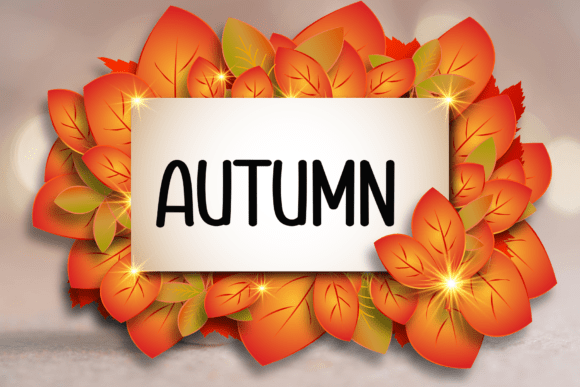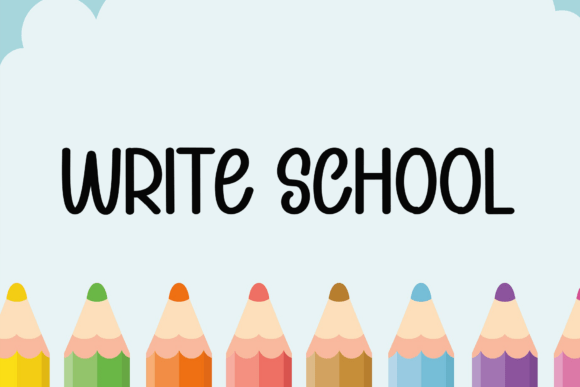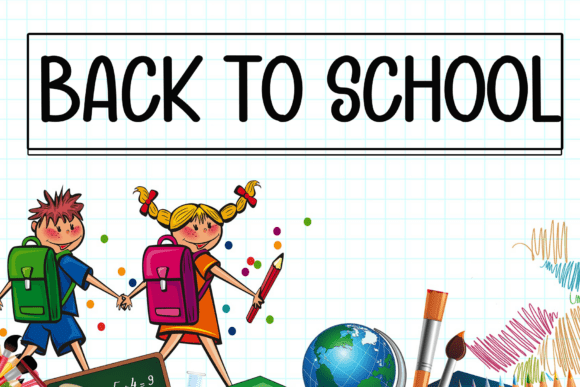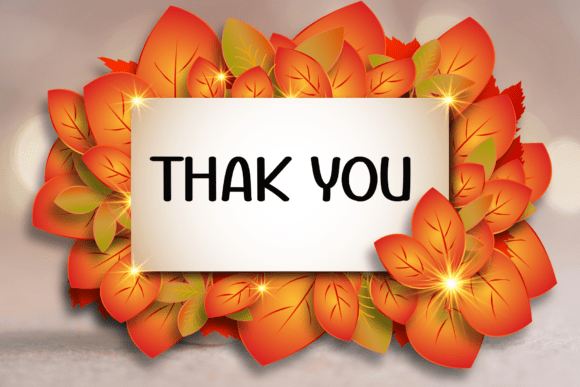
Hello Christmas Font: A Delicate and Elegant Handwritten Font for Your Holiday Designs
The holiday season is upon us, and with it comes the need for festive and fun designs that capture the spirit of Christmas. If you’re a designer or crafter looking for the perfect font to add to your holiday creations, look no further than the Hello Christmas font. This beautiful, handwritten font is delicate, elegant, and flowing, making it perfect for a wide range of designs.
What is Hello Christmas Font?
Hello Christmas is a delicate, elegant, and flowing handwritten font that has been designed to bring a touch of festive cheer to your designs. With its beautiful and well-balanced characters, this font is perfect for creating stunning holiday-themed projects, from Christmas cards and invitations to festive posters and social media graphics.
Key Features of Hello Christmas Font
So, what makes Hello Christmas font so special? Here are just a few of its key features:
- Delicate and elegant design: Hello Christmas font has a delicate and elegant design that is perfect for creating sophisticated and stylish holiday designs.
- Flowing handwritten style: The font has a flowing handwritten style that gives it a personal and unique touch.
- Well-balanced characters: The characters in Hello Christmas font are well-balanced and beautifully designed, making it easy to read and understand.
- Matches a wide pool of designs: The font’s versatility means it can be paired with a wide range of designs, from traditional to modern and playful.
How to Use Hello Christmas Font
So, how can you use Hello Christmas font in your designs? Here are a few ideas to get you started:
- Christmas cards and invitations: Use Hello Christmas font to create beautiful and festive Christmas cards and invitations that will delight your friends and family.
- Holiday posters and social media graphics: Add a touch of festive cheer to your holiday posters and social media graphics with Hello Christmas font.
- Festive crafts and DIY projects: Use Hello Christmas font to add a personal touch to your festive crafts and DIY projects, such as holiday gift tags and decorations.
Why Choose Hello Christmas Font?
So, why should you choose Hello Christmas font for your holiday designs? Here are just a few reasons:
- Unique and eye-catching: Hello Christmas font is a unique and eye-catching font that will help your designs stand out from the crowd.
- Easy to read and understand: The font’s well-balanced characters make it easy to read and understand, even at small sizes.
- Versatile: Hello Christmas font can be paired with a wide range of designs, making it perfect for a variety of holiday projects.
Tips for Using Hello Christmas Font
Here are a few tips for using Hello Christmas font in your designs:
- Pair with complementary fonts: Pair Hello Christmas font with complementary fonts to create a unique and eye-catching design.
- Experiment with different colors: Experiment with different colors and textures to add depth and interest to your design.
- Use it sparingly: Use Hello Christmas font sparingly to create a sense of elegance and sophistication.
Hello Christmas font is a beautiful and elegant handwritten font that is perfect for adding a touch of festive cheer to your holiday designs. With its delicate and flowing design, well-balanced characters, and versatility, it’s the perfect choice for designers and crafters looking to create stunning holiday-themed projects. So why not give it a try and see how it can bring your designs to life?